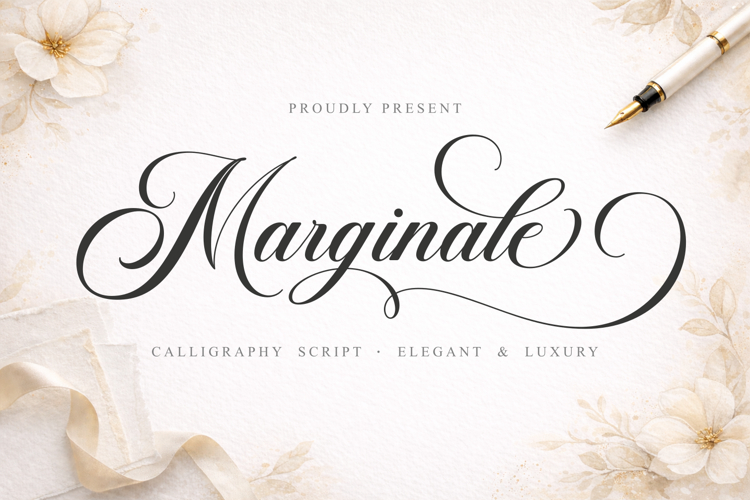
Marginale is a graceful calligraphy script that blends delicate curves with refined strokes, creating a timeless and luxurious feel. Perfect for wedding invitations, branding, logos, and elegant designs, this font brings a sophisticated charm to every project. Its flowing letterforms and stylish swashes make it effortlessly beautiful and highly versatile.
Add it to your logos, labels, branding, invitations, websites, quotes, and more, and it will boost your designs and make them a true standout!